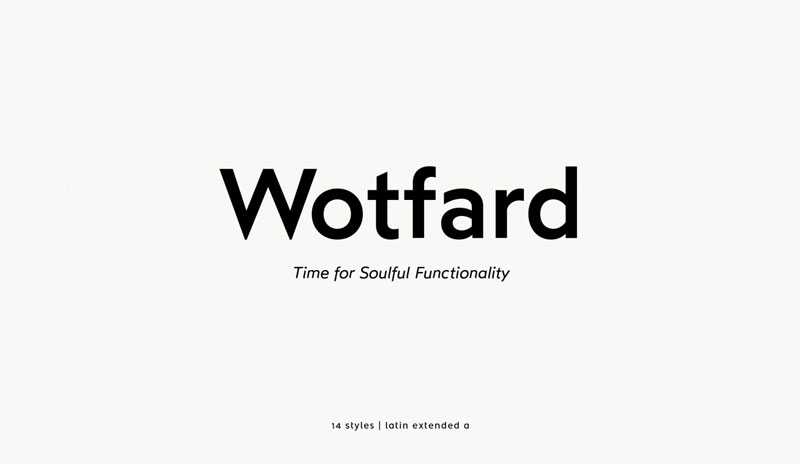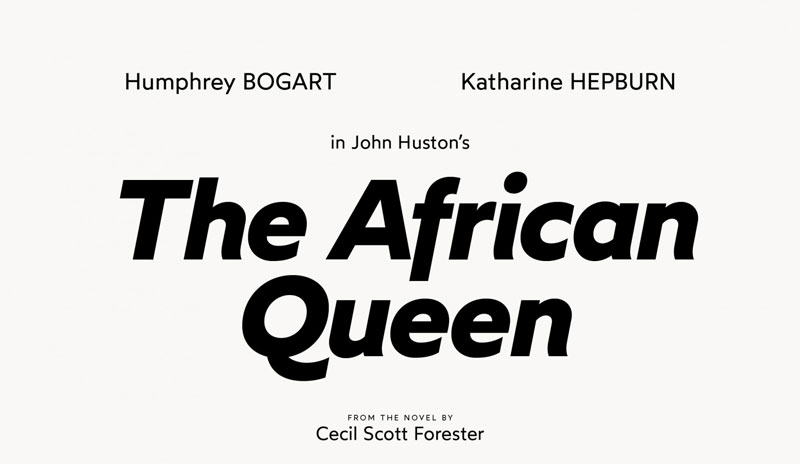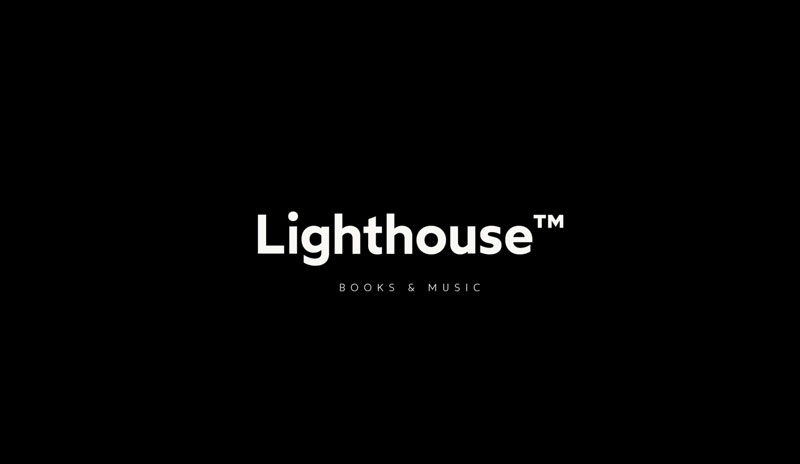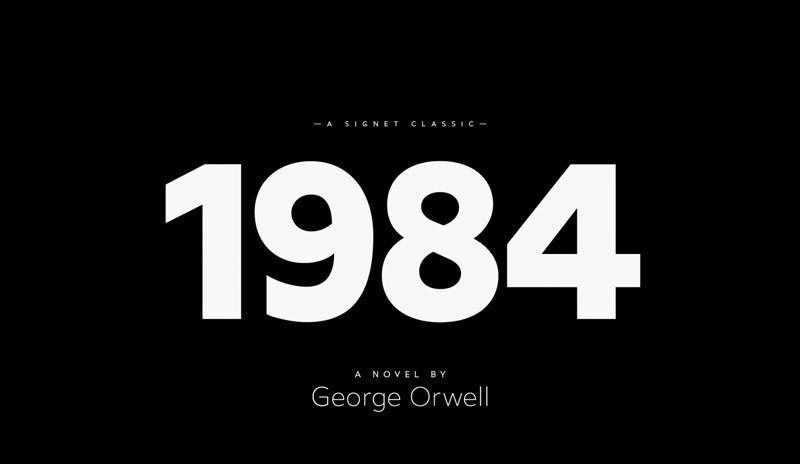
Wotfard Font Family
Download Free Atipofoundry – Wotfard Font Family. Wotfard is a contemporary geometric sans serif. The whole family consists of 14 weights from Thin to Bold and their matching Italics. Also Checkout Xenia Urshina Font Family